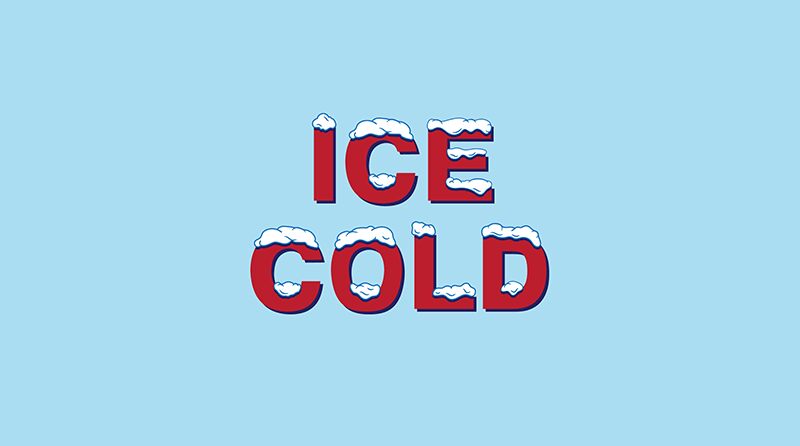
Ice Cold LH font
Ice Cold LH
Lucas Howlett
Introducing Ice Cold Typeface
What’s cooler than being cool? Ice Cold! Experience the vintage charm and modern design of a timeless font that you’ve likely encountered before. Ice Cold is inspired by the classic lettering found on convenience store and gas station ice machines made by Leer throughout North America. Each character showcases a unique snow cap design, making your designs and sentences as distinctive as a snow angel.
Ice Cold Typeface offers versatility in every stroke. Whether you choose the full color or solid style, this font adds a touch of vintage and winter elegance to your projects. As demand grows, I am dedicated to expanding its character set, exploring additional characters, and even a lowercase option. The foundation is handmade and influenced by Helvetica for this version. Dive into the frosty world of Ice Cold, where the magic of vintage aesthetics meets the precision of modern design.